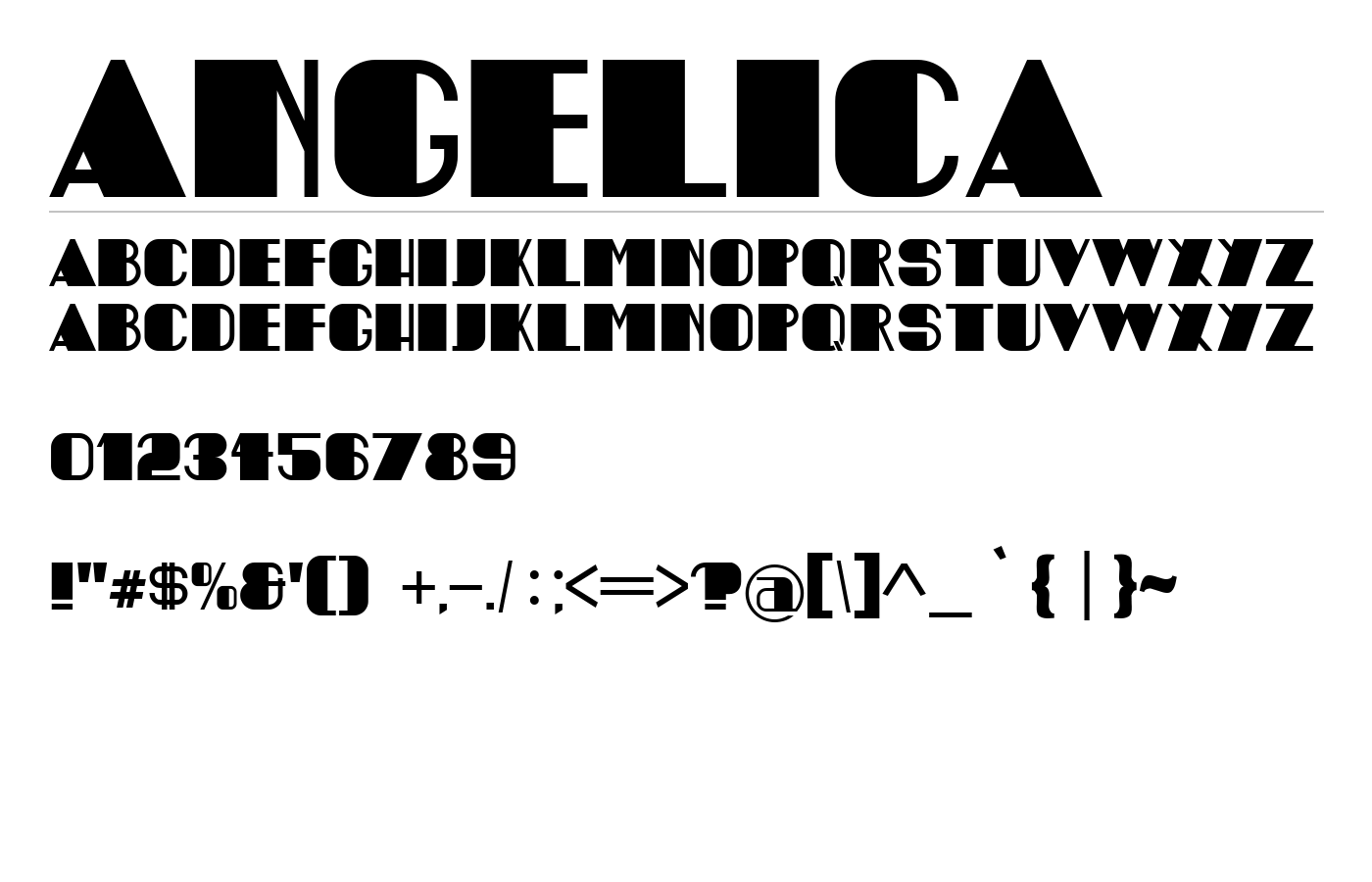
Angelica is a bold and striking display sans serif font with a strong geometric influence and high contrast between thick and thin strokes. Its condensed, uppercase-only letterforms feature sharp edges and unique stylized cuts that give it a modern, edgy personality perfect for impactful headlines, logos, and branding where a dramatic, confident look is needed. This font works well in creative industries or fashion contexts aiming for a sleek and daring visual presence.
Angelica Font
About Angelica Font